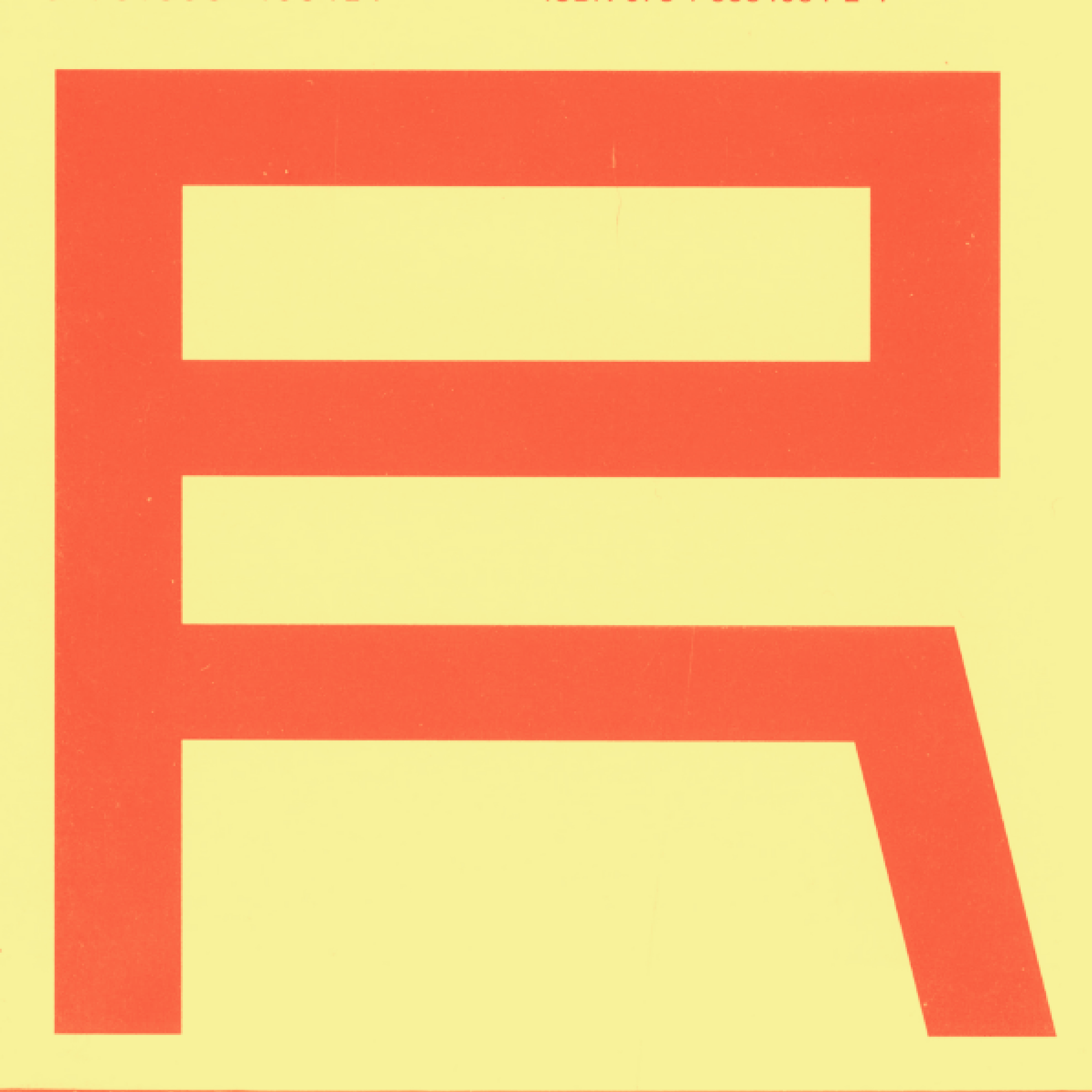
F37 Malqa
Drawing on their multicultural design expertise, Ochre have released two Latin/Arabic fonts inspired by the Middle East.
F37 Malqa celebrates the spirit of connections, drawing inspiration from Dubai, a hot, humid, melting pot of people and culture. The Arabic and Latin characters were designed hand-in-hand, influencing each other’s design, drawing a confluence of unique and distinct styles. The unique bowls and connections are the standout feature of the font, bringing a unique look to the Latin and Arabic.
Tell us about the inspiration behind your collaboration with F37®×. If it was an unused concept, what was the potential use case for it.
Malqa was one of the concepts developed for District 2020, the legacy of Expo 2020 Dubai. Designed to be an innovation district, District 2020 aims to bring together investors and global talent under one collaborative environment. Showcasing this spirit of connections, we wanted to highlight the connecting element within each letterform, making a feature of it. District 2020 later got renamed to Expo City Dubai with a different purpose. We however still felt the spirit of connections was relevant to the city of Dubai, seen as a melting pot of cultures. Malqa in Arabic translates to a 'meeting place'.
When starting the process of creating your font, what typographic conventions did you look to break or experiment with? Or were there conventions of functionality you championed?
Showcasing this spirit of connections, we wanted to highlight the connecting element within each letter form, making a feature of it. Being an innovation district, we felt the construction could be quite edgy and brutalist in approach, juxtaposing and merging elements unapologetically. Although not the first time seen in Latin faces, the exercise was in some sense innovative when translated to Arabic, resulting in some interesting letter forms not seen before.
It would be great to see it used by a gallery space or modern art museum, where one could be a bit more bold and playful in approach. You could also see it live across a wide range of applications, from dynamic digital content to physical manifestations like installations/exhibitions, applied on different materials with interesting finishes (e.g. wayfinding, merchandise).
What have you learnt through developing and creating your own typeface(s) with our F37® type designers?
One walks a fine line when creating type that is visually interesting without compromising on legibility and other functional elements. There is a lot to consider, particularly with Arabic, where each character takes different forms depending on where it sits in a word.
How would you describe your typeface in three words?
Modern. Brutalist. Quirky.